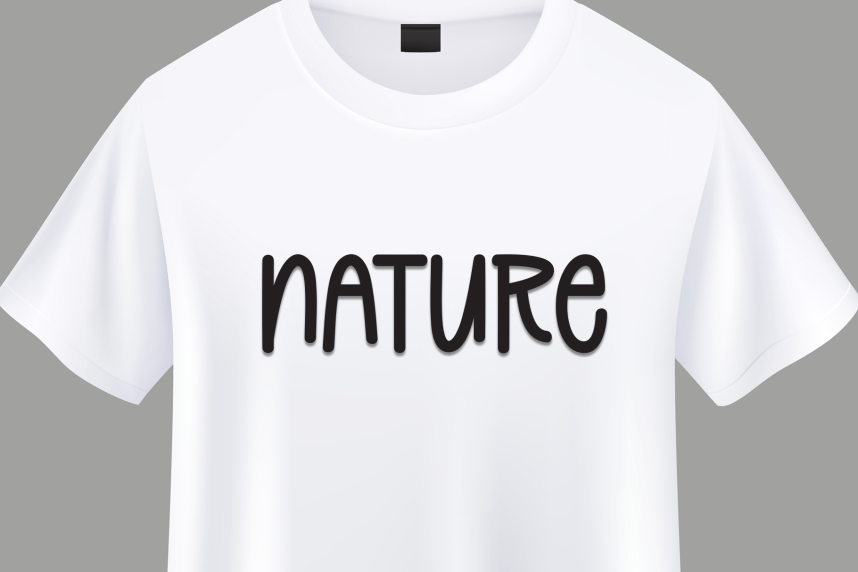
Story Christmas Playful Font
Story Christmas Playful Font is a sweet and friendly handwritten display font. Cute and fun, this font is ideal for writing wedding invitations, cards, or any other design that might need a playful touch!